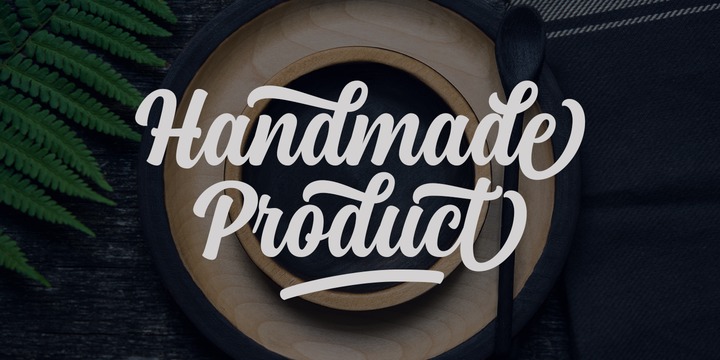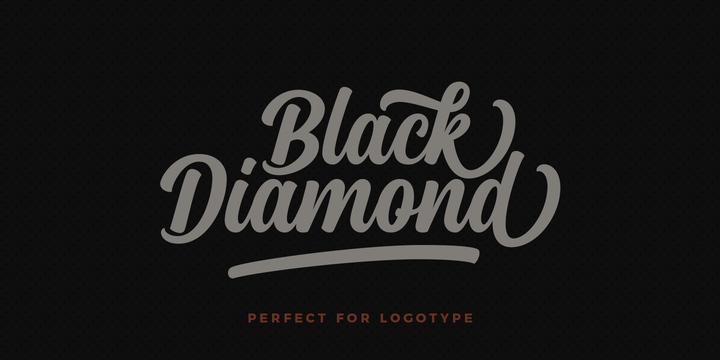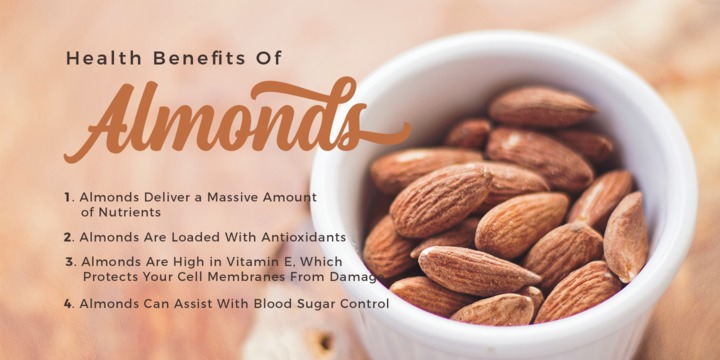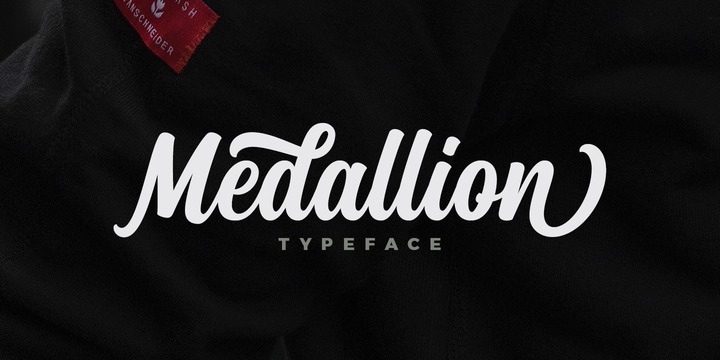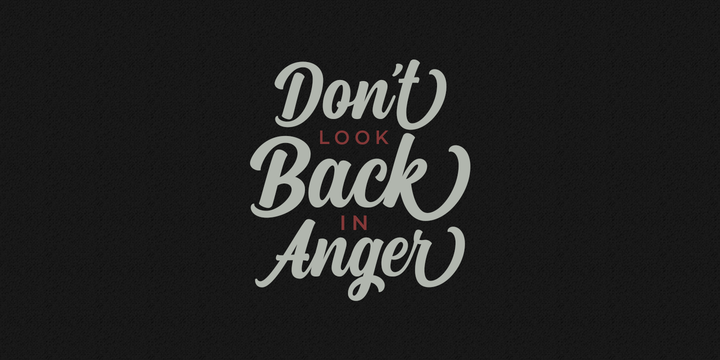
Medallion Script Font
Medallion is a new and fresh font script that comes with a vintage and neat style. so this font can be used easily, even in mix and match with other fonts. so it can provide new alternatives and sensations for designers or craftsmen, in working on various projects.
This font is perfect for all your project like the wedding invitation, greeting cards, branding materials, business cards, quotes, posters, insignia, badge, greeting cards, vintage logo, or you can use this font for various logo project (logotype) and more! The following characters are ideal to make an attractive message, mix and match Medallion with a bunch of alternative characters to fit your